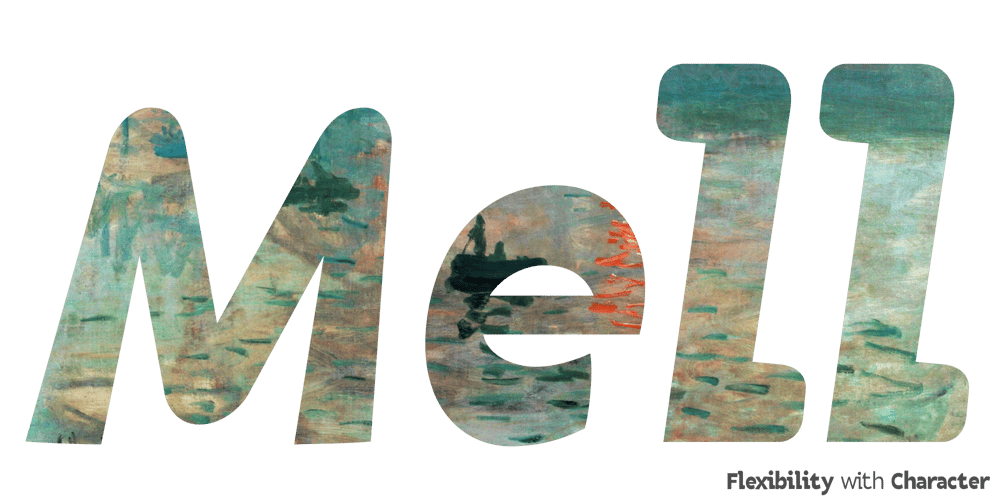
Mell Sans Font Family was designed by Jencel Panic and published by Abuse of Notation. Mell Sans contains 18 styles and family package options. Ten years ago, Mell Sans began as a simple sketch on a napkin during a rainy afternoon. Its designer, searching for a way to make text feel human without losing clarity, spent years perfecting each curve. Mell’s lowercase “d” was inspired by the graceful shape of a raindrop, while the “g” recalls the loops of an artist’s brushstroke.Mell Sans has seen the world—it was refined on notebooks during long train rides and tweaked under the flicker of midnight desk lamps. Its forms blend the influence of ancient manuscripts with the clean lines of modern architecture, creating a font that feels alive, yet understated.The result is a typeface you can trust anywhere, from personal projects to polished publications. Mell Sans carries a story in its bones and invites you to write your own.